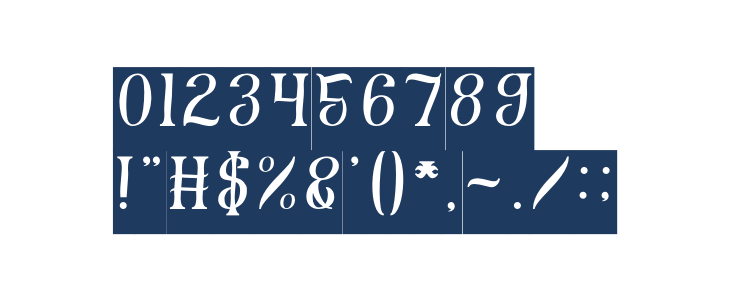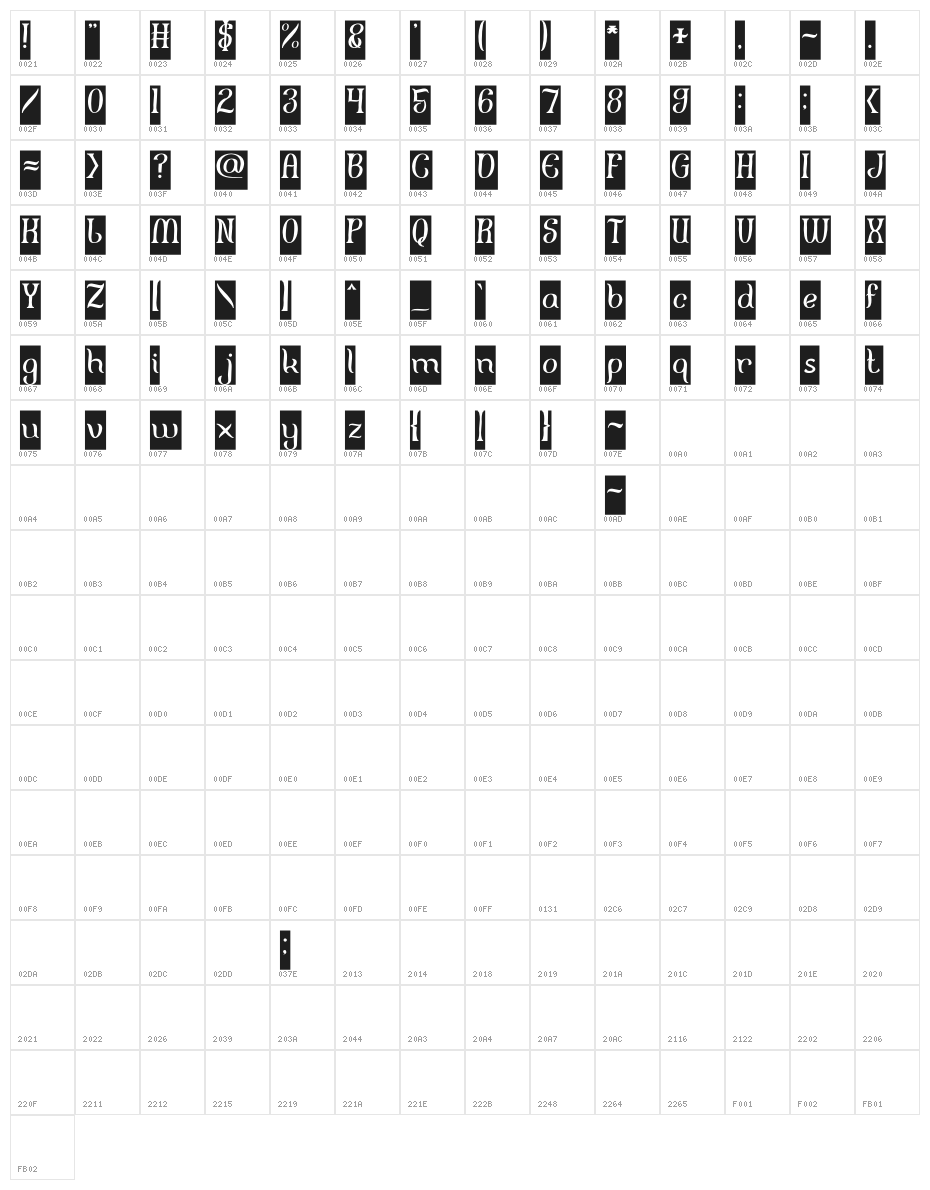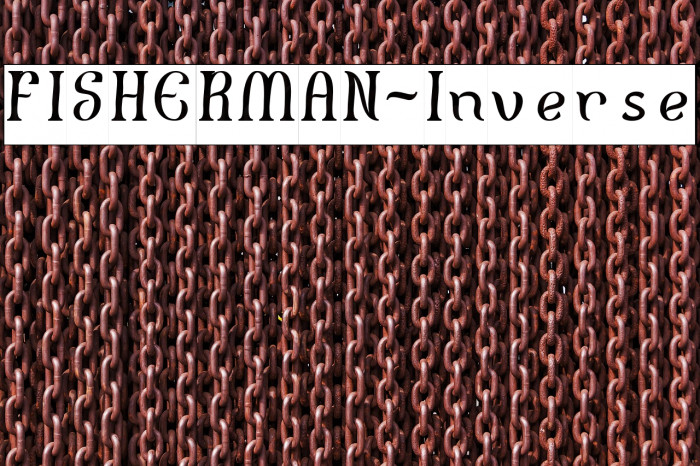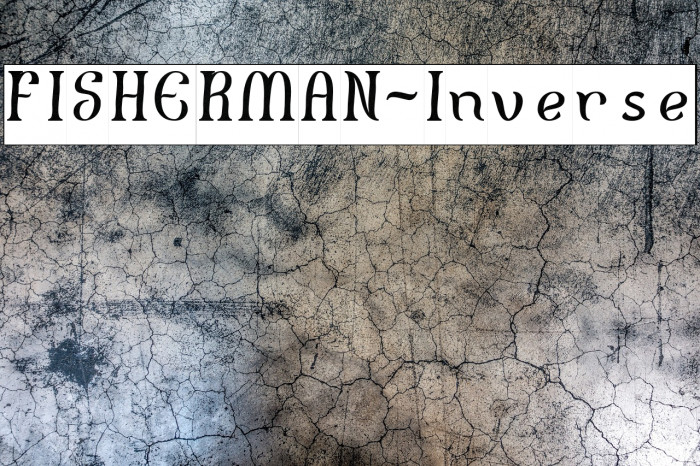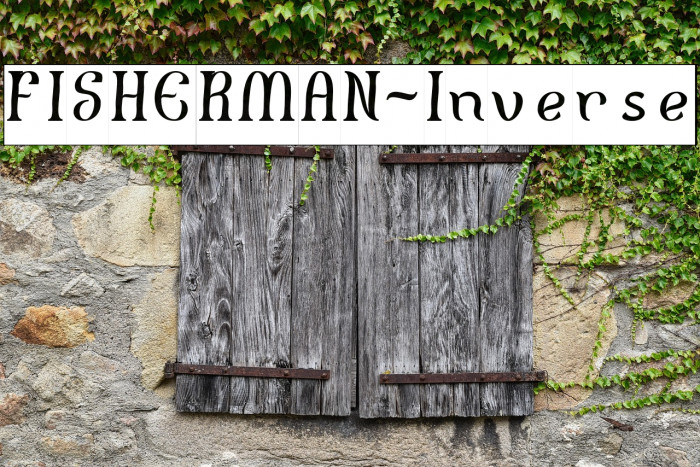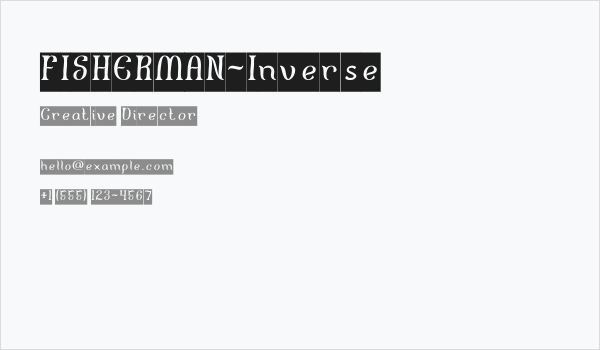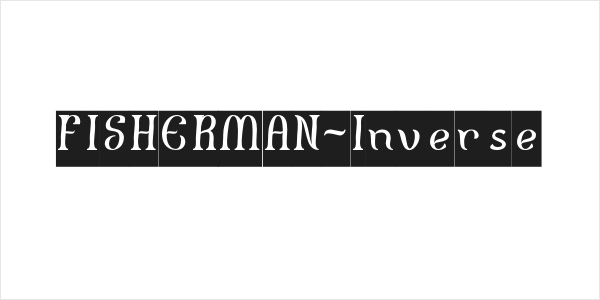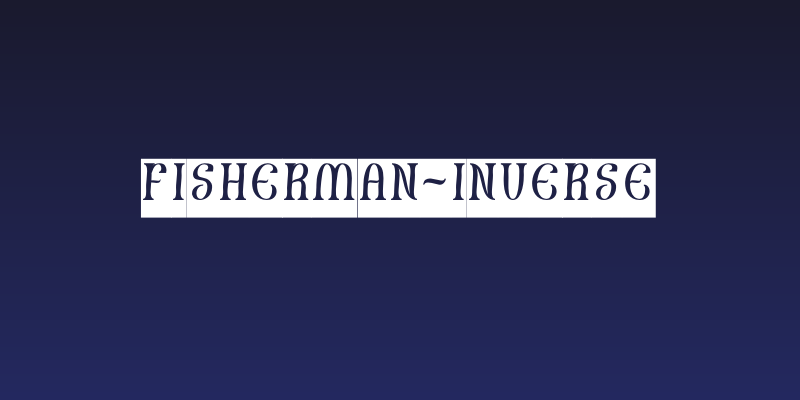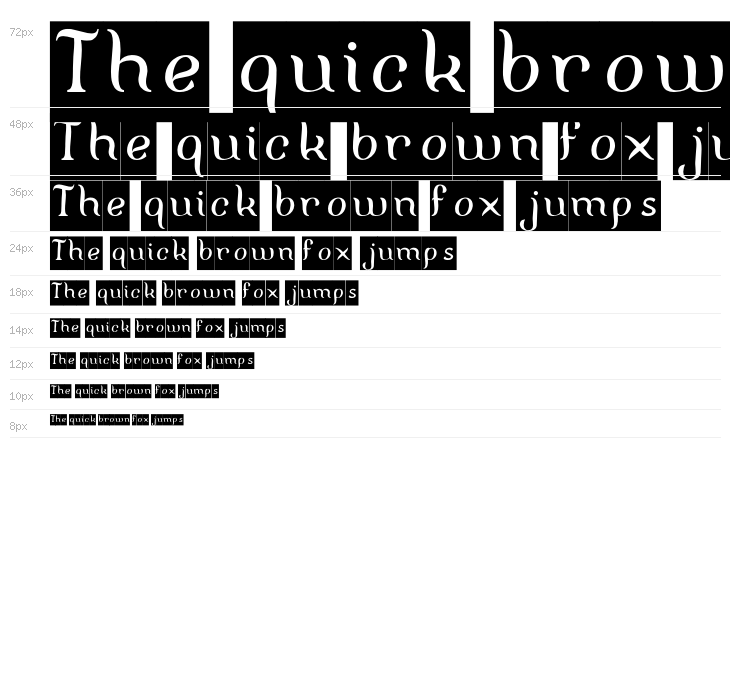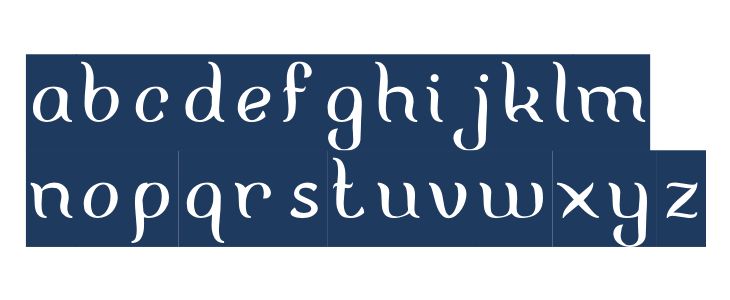
FISHERMAN-Inverse Font
FISHERMAN-Inverse Description
This font features a unique blend of classic and decorative elements, characterized by its flowing, curvilinear strokes and distinctive serifs. The uppercase letters exhibit a bold presence with slightly exaggerated curves, while the lowercase letters maintain a harmonious balance with a more subtle flair. The numerals are consistent with the overall style, offering a playful yet elegant appearance. Special characters are thoughtfully designed to complement the alphabet, enhancing the font's versatility. The font's high contrast between thick and thin strokes adds to its visual appeal, making it suitable for eye-catching designs.